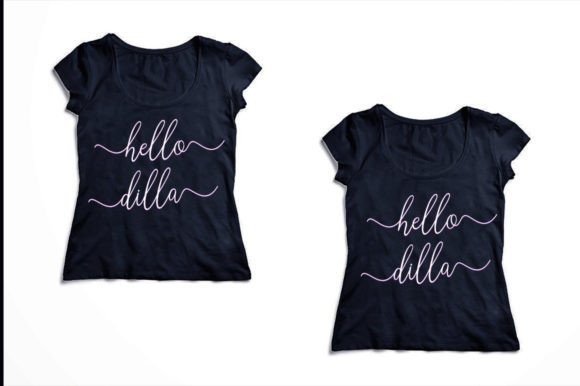
Introducing Dealicha Font: The Perfect Modern Script Font for Your Creative Projects
In the world of typography, fonts play a crucial role in conveying the tone and personality of a brand or design. Among the numerous fonts available, Dealicha Font stands out as a modern script font that has gained popularity for its unique and captivating features. In this article, we’ll dive into the world of Dealicha Font, exploring its characteristics, uses, and benefits, as well as provide tips on how to make the most of this beautiful font.
What is Dealicha Font?
Dealicha Font is a modern script font designed with an irregular baseline, giving it a distinctive and trendy look. This font is perfect for those who want to add a touch of elegance and sophistication to their designs. Its feminine and flowing strokes make it an ideal choice for a variety of creative projects, from wedding invitations and thank you cards to quotes, greeting cards, logos, and business cards.
Key Features of Dealicha Font
- Modern Script Font: Dealicha Font boasts a modern script style that is both trendy and timeless.
- Irregular Baseline: The font’s irregular baseline adds a touch of uniqueness and creativity to any design.
- Feminine and Flowing: Dealicha Font features feminine and flowing strokes that make it perfect for designs that require a touch of elegance.
- Trendy and Sophisticated: The font’s modern design makes it an excellent choice for those who want to create trendy and sophisticated designs.
Uses of Dealicha Font
Dealicha Font is a versatile font that can be used in a variety of creative projects. Here are some of the most popular uses of this beautiful font:
- Wedding Invitations: Dealicha Font is perfect for wedding invitations, adding a touch of elegance and sophistication to your wedding stationery.
- Thank You Cards: The font’s feminine and flowing strokes make it an excellent choice for thank you cards and other greeting cards.
- Quotes and Posters: Dealicha Font is ideal for creating inspirational quotes and posters that require a touch of elegance and sophistication.
- Logos and Branding: The font’s modern design makes it an excellent choice for logos and branding projects that require a trendy and sophisticated look.
- Business Cards: Dealicha Font is perfect for business cards, adding a touch of professionalism and elegance to your business stationery.
Benefits of Using Dealicha Font
Dealicha Font offers numerous benefits that make it an excellent choice for designers and crafters. Here are some of the most significant advantages of using this beautiful font:
- Unique and Eye-Catching: Dealicha Font’s irregular baseline and flowing strokes make it a unique and eye-catching font that will set your designs apart.
- Feminine and Elegant: The font’s feminine and elegant design makes it perfect for designs that require a touch of sophistication and glamour.
- Versatile: Dealicha Font is a versatile font that can be used in a variety of creative projects, from wedding invitations to logos and branding.
- Easy to Read: The font’s clear and flowing strokes make it easy to read, even in small sizes.
Tips for Using Dealicha Font
To make the most of Dealicha Font, here are some tips to keep in mind:
- Pair with Other Fonts: Dealicha Font pairs well with other fonts, especially sans-serif fonts. Experiment with different font combinations to find the perfect match.
- Use in Combination with Ink or Watercolor: Dealicha Font looks stunning when used in combination with ink or watercolor. Experiment with different mediums to create unique and beautiful designs.
- Experiment with Different Sizes: Dealicha Font can be used in a variety of sizes, from small to large. Experiment with different sizes to find the perfect fit for your design.
- Pay Attention to Kerning: As with any font, pay attention to kerning to ensure that your text looks professional and polished.
Dealicha Font is a beautiful modern script font that offers a unique and captivating design. Its irregular baseline, feminine and flowing strokes, and trendy and sophisticated look make it perfect for a variety of creative projects. Whether you’re designing wedding invitations, thank you cards, quotes, logos, or business cards, Dealicha Font is an excellent choice. With its versatility, elegance, and ease of use, Dealicha Font is sure to become a favorite in your design arsenal.